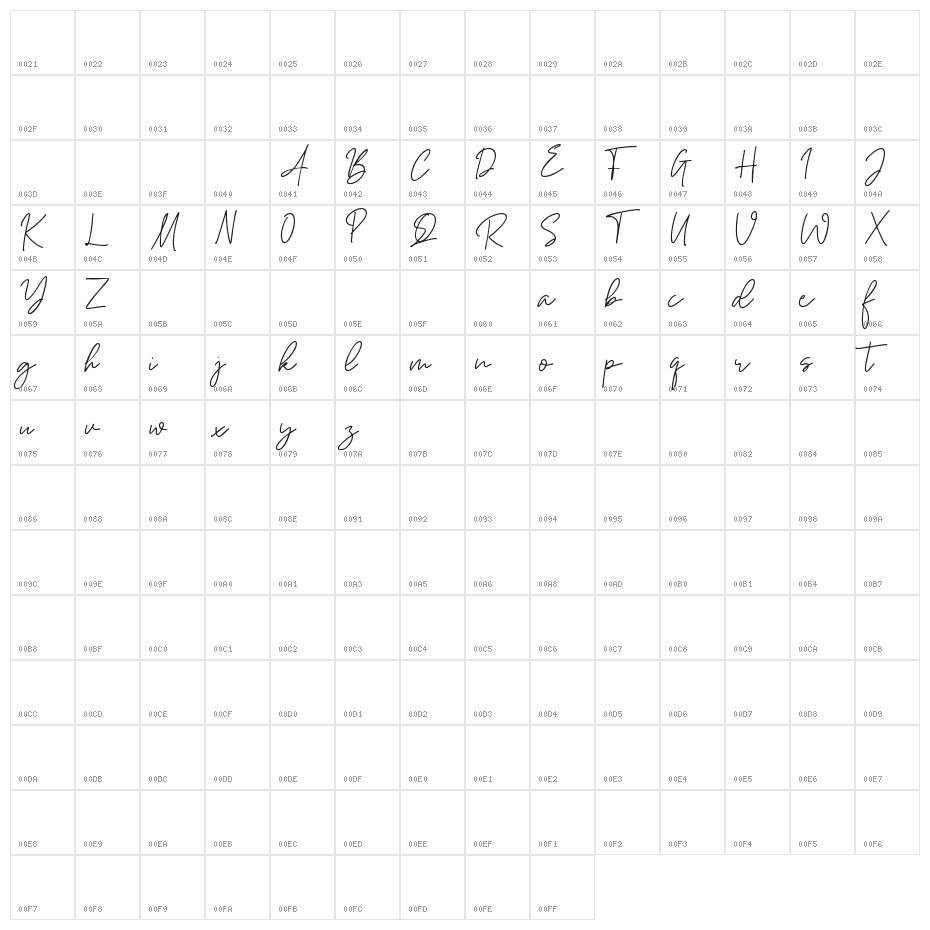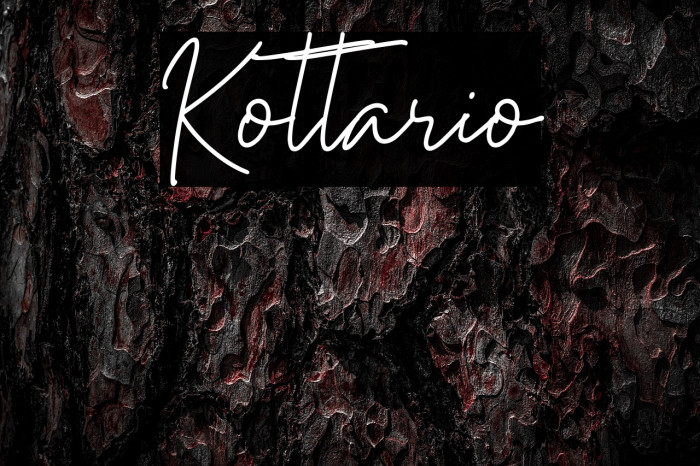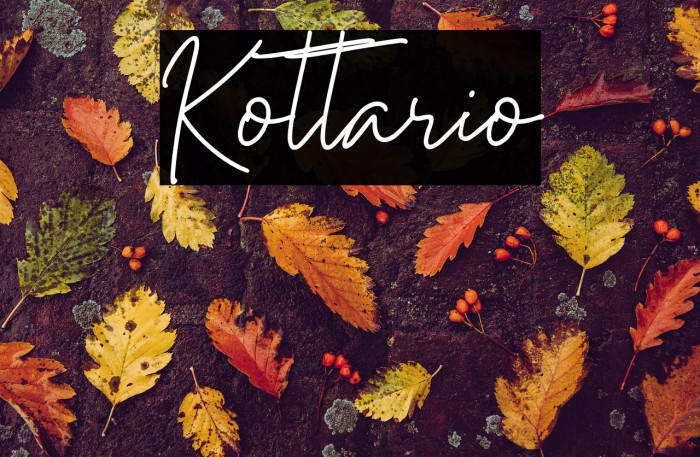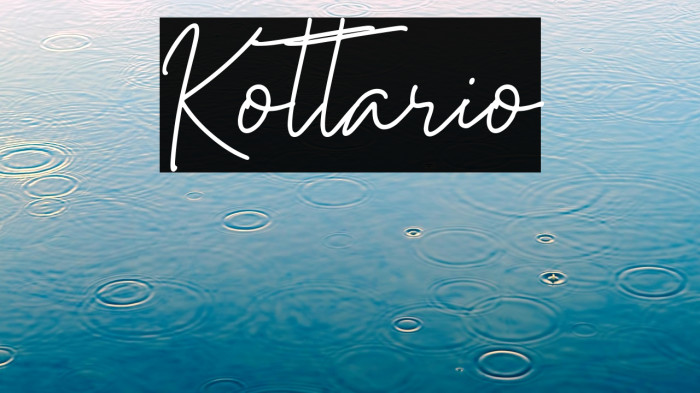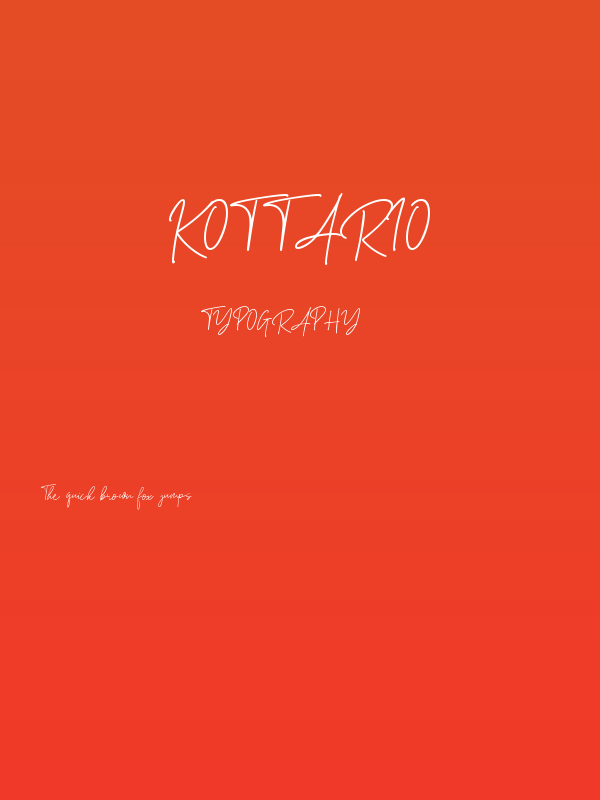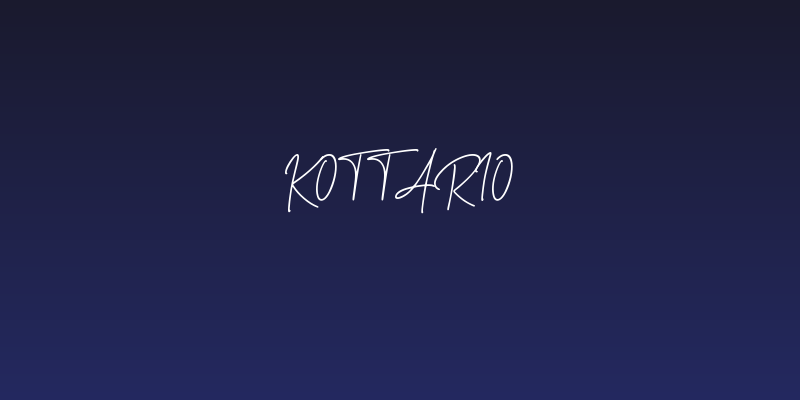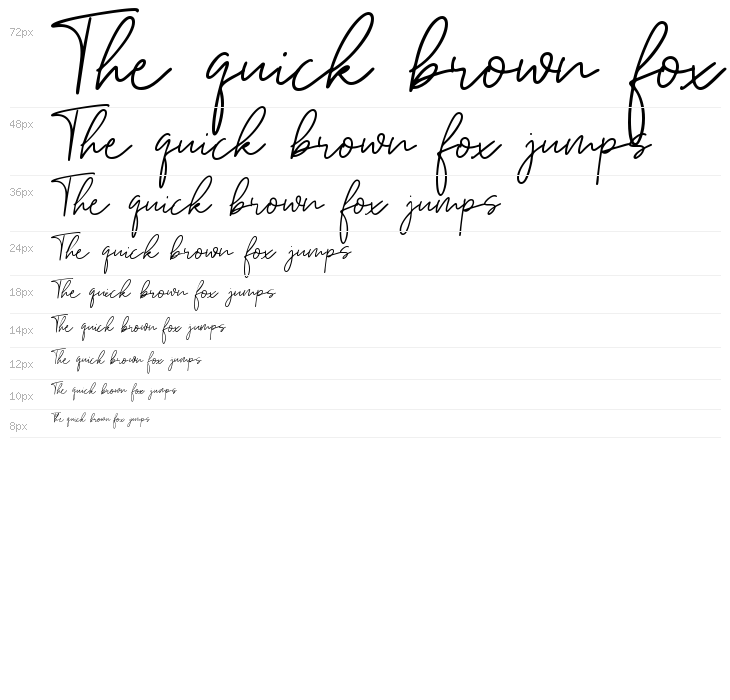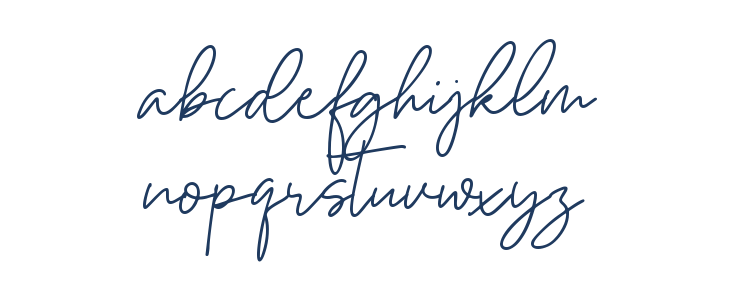
Kottario Font
Kottario Description
This font exudes a lively and dynamic character with its handwritten style. The letters are crafted with a fluid, cursive touch, giving them an elegant and personal feel. The uppercase letters maintain a consistent height, while the lowercase letters exhibit a playful variation in size and slant. The strokes are smooth and continuous, enhancing the font's legibility despite its decorative nature. The overall appearance is both sophisticated and approachable, making it suitable for a variety of creative applications. The font's unique personality is further emphasized by its slightly irregular baseline, adding to its charm and authenticity.
| Proposed Projects | Ideal for wedding invitations, personal branding, greeting cards, and artistic projects that require a personal touch. |